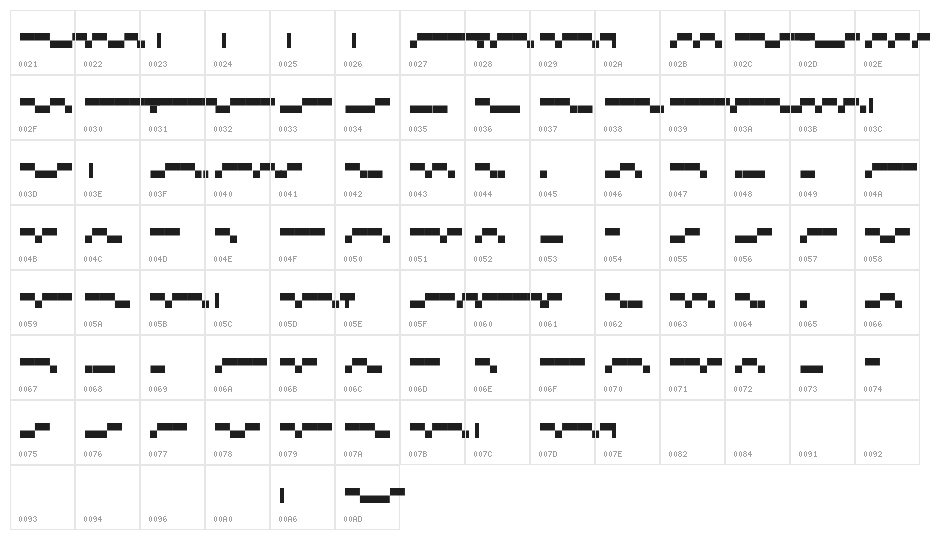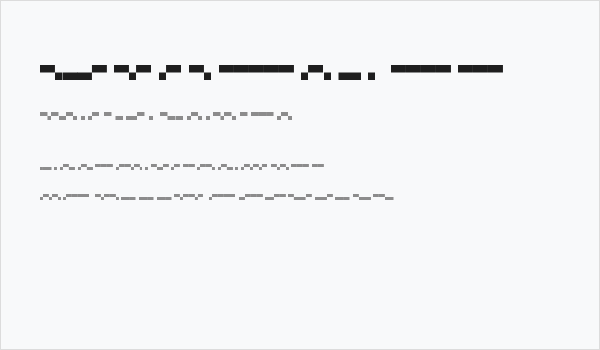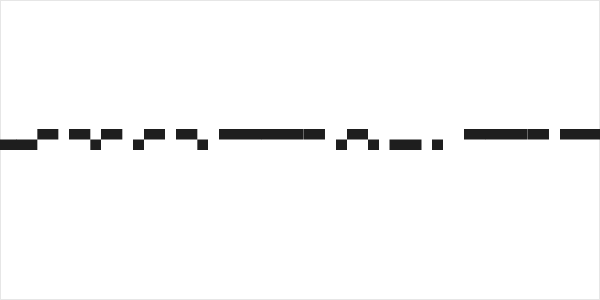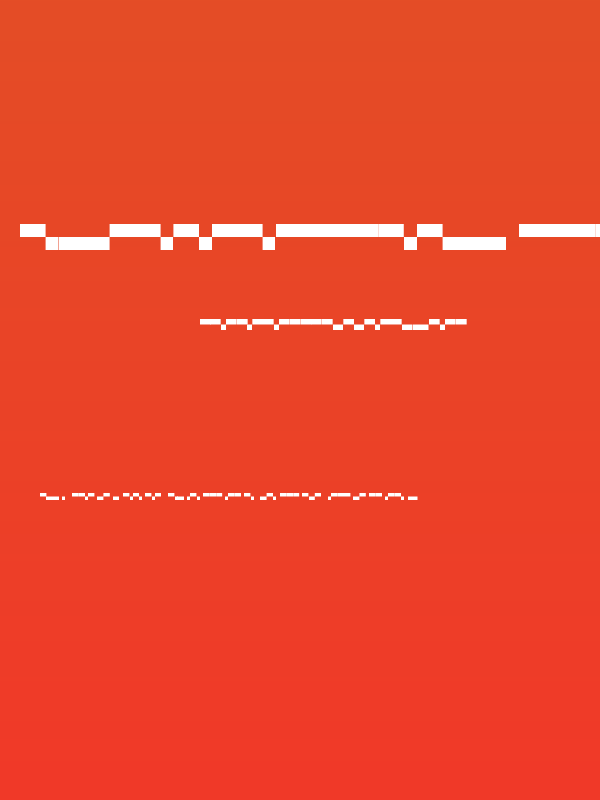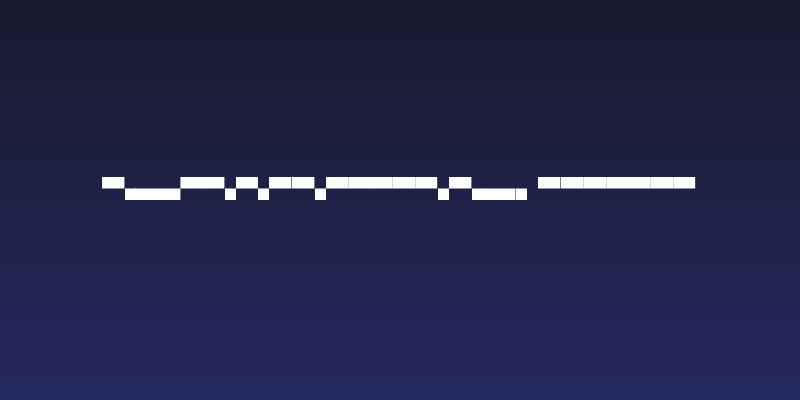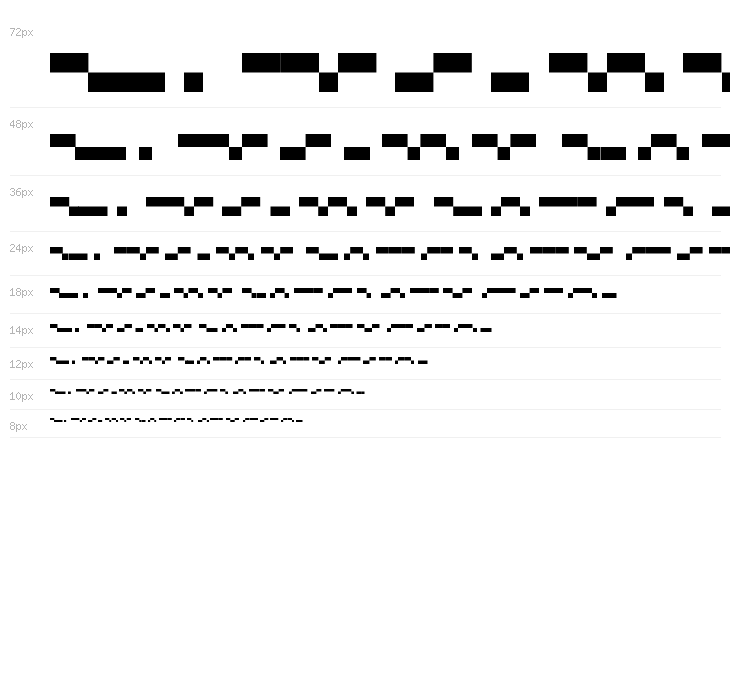
BukanMorse Too Font
BukanMorse Too Description
This font is a creative representation of Morse code, where each character is depicted using a series of dots and dashes. The design is highly abstract, focusing on the minimalistic and linear nature of Morse code. Each letter and number is uniquely represented, maintaining the integrity of Morse code while translating it into a visual font. The characters are evenly spaced, providing a clean and organized appearance. This font is not only functional but also serves as an artistic expression, making it suitable for projects that require a modern and innovative touch.
Proposed ProjectsIdeal for educational materials on Morse code, modern art projects, and unique branding designs.